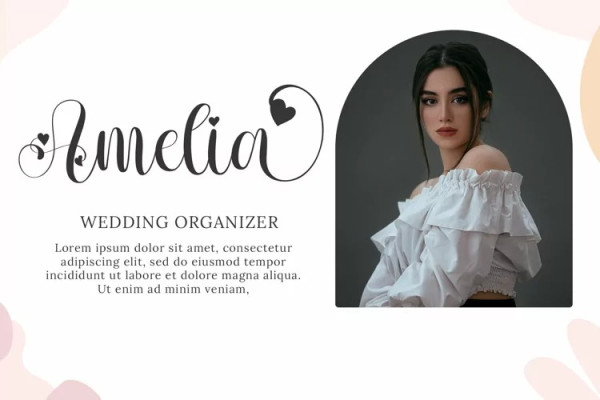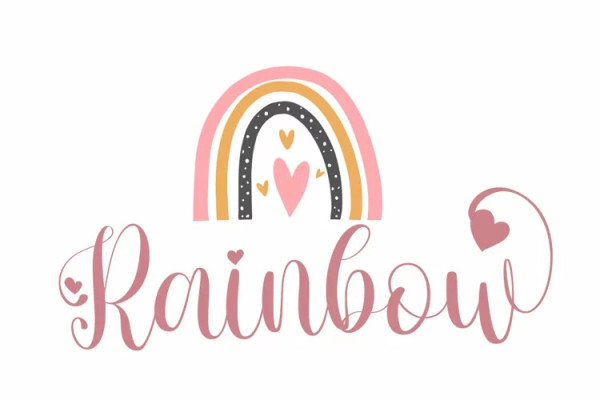
Amour Typeface
Amour Typeface is a sweet, whimsical, flowing and thin script font. Featuring characters that dance along the baseline, this font will add a luxury spark to any design project that you wish to create!